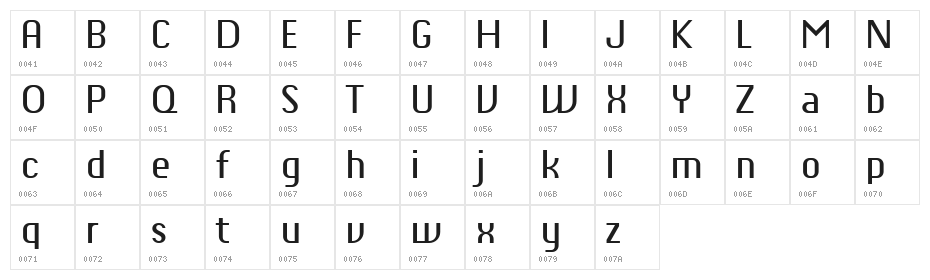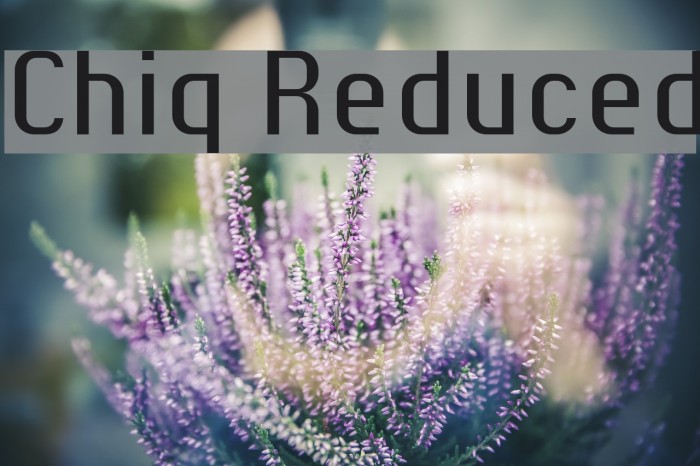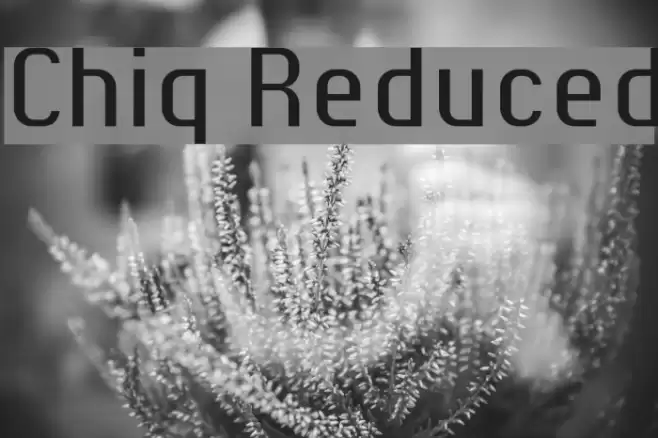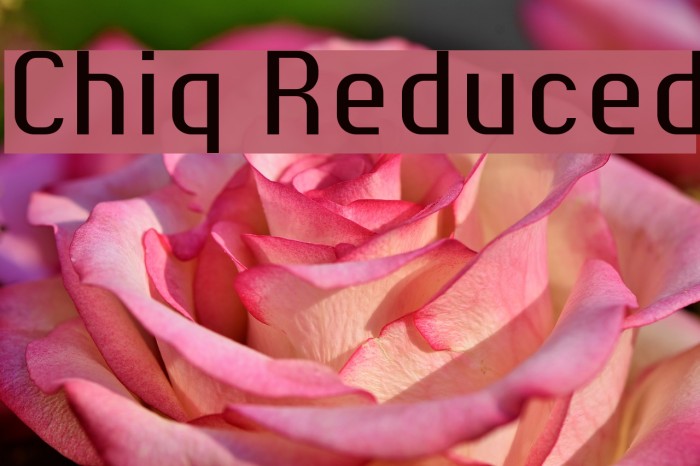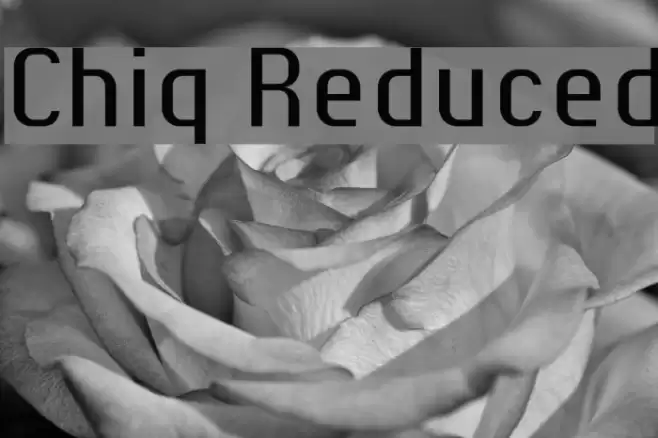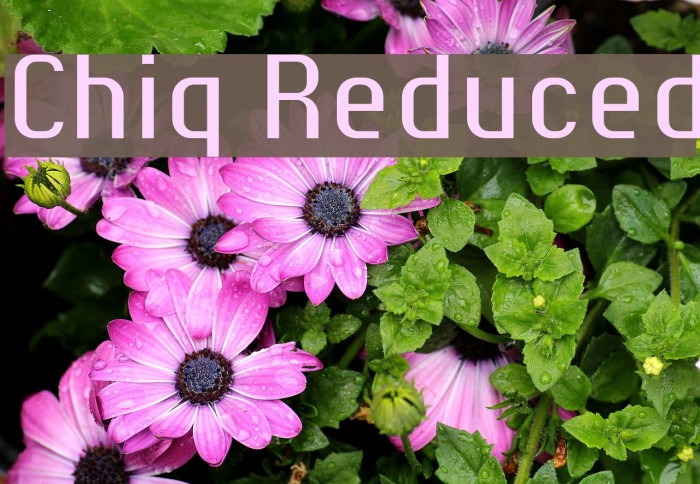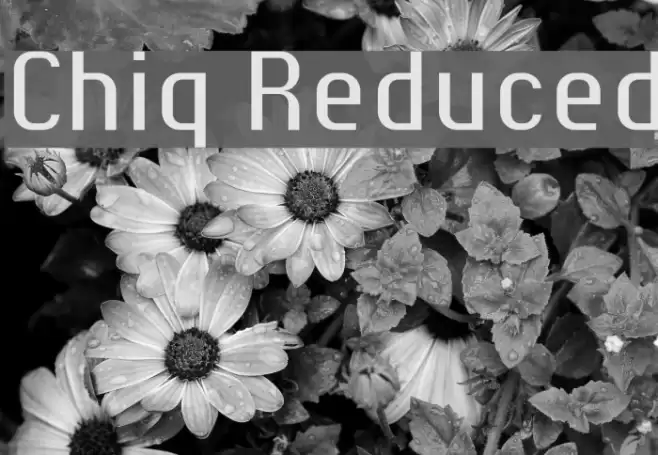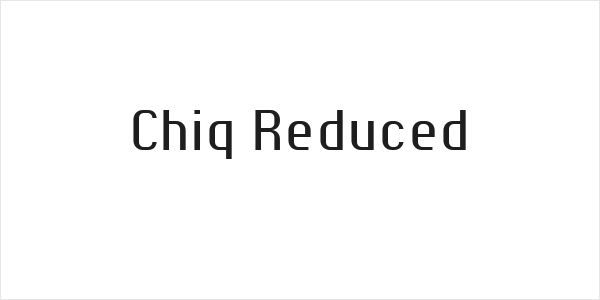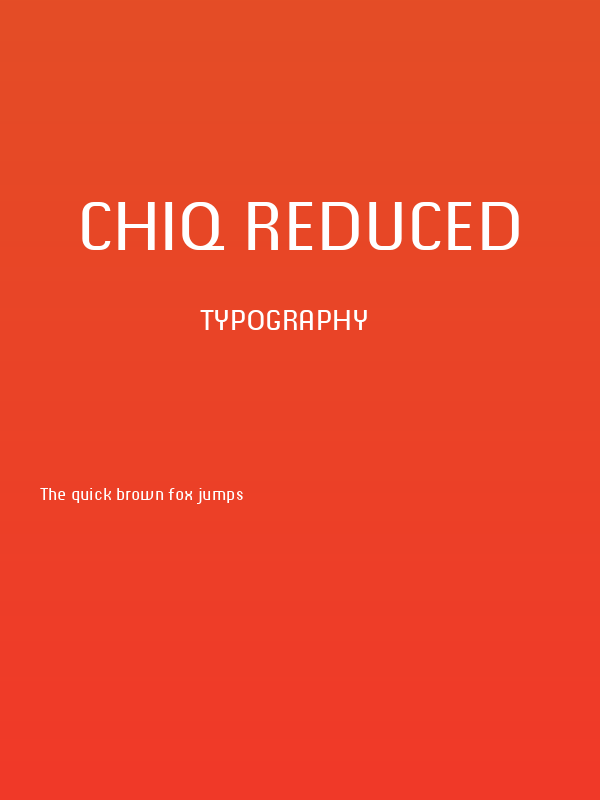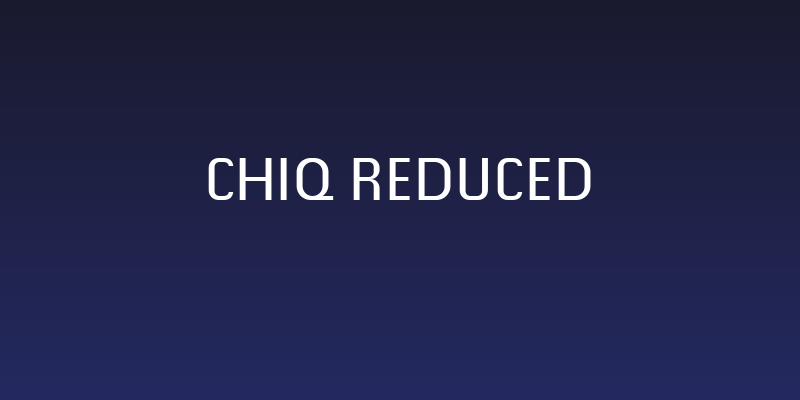
Chiq Reduced Font
Chiq Reduced Description
This font features a modern and sleek design with clean lines and a geometric structure. The uppercase letters are bold and assertive, while the lowercase letters maintain a consistent style with slightly rounded edges, adding a touch of softness. The numerals are clear and easy to read, making them suitable for various applications. The special characters are designed to complement the overall aesthetic, ensuring cohesion across all text elements. This font's versatility makes it ideal for contemporary design projects.
| Proposed Projects | Ideal for branding, advertising, digital media, and editorial design projects. |